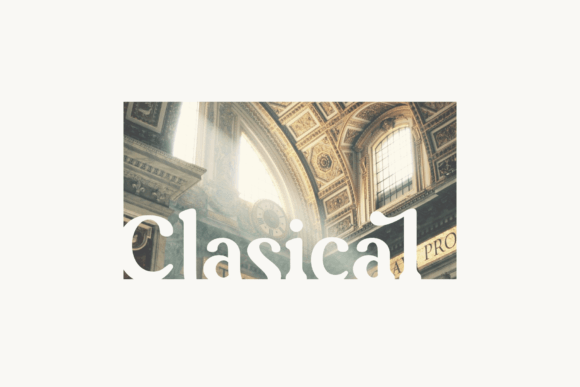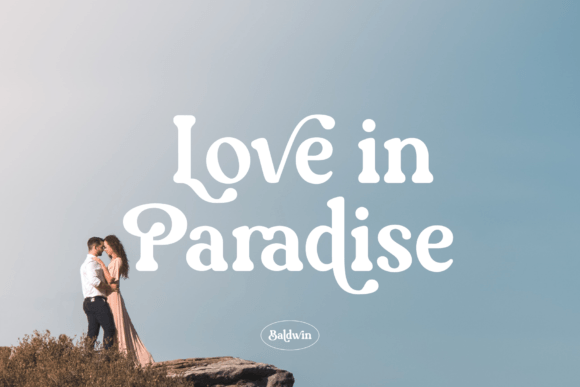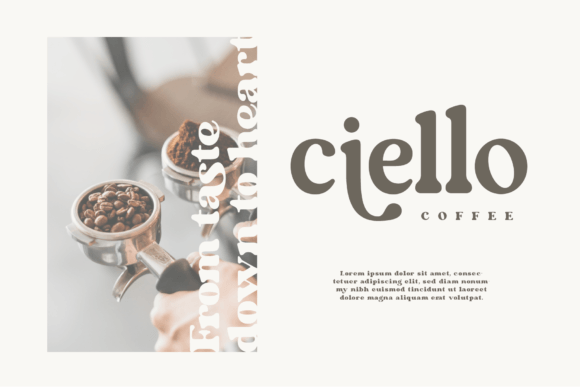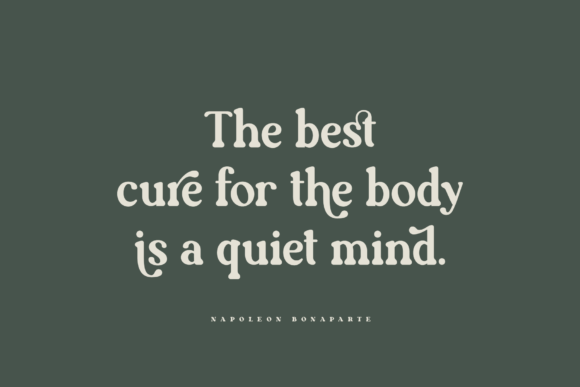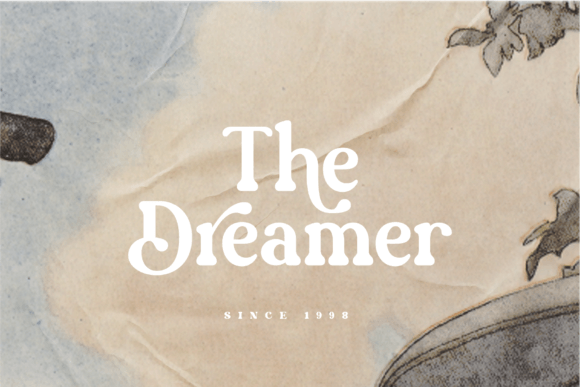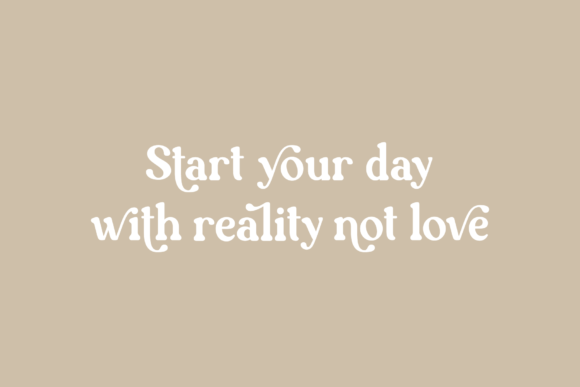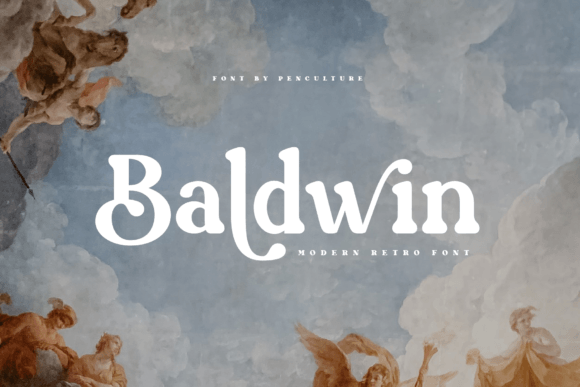
Introducing Baldwin Font: A Modern Retro Serif Font for Timeless Designs
In the world of typography, fonts play a crucial role in conveying the tone and personality of a design. For designers and crafters looking for a font that combines modernity with a touch of vintage charm, Baldwin Font is an excellent choice. This modern retro serif font seamlessly blends contemporary design with classic elegance, making it perfect for a wide range of design projects.
What is Baldwin Font?
Baldwin Font is a carefully crafted serif font that draws inspiration from traditional typography while incorporating modern design elements. Its clean lines, classic letterforms, and balanced proportions make it a versatile font suitable for various design applications. Whether you’re working on branding materials, editorial layouts, or web designs, Baldwin Font is designed to add a touch of sophistication to your work.
Key Features of Baldwin Font
- Modern Retro Aesthetic: Baldwin Font boasts a unique blend of modern and vintage design elements, making it stand out from more traditional serif fonts.
- Clean Lines and Classic Letterforms: The font features clean, elegant lines and classic letterforms that evoke a sense of timelessness and sophistication.
- Versatility: Baldwin Font is highly versatile and can be used for a wide range of design projects, from branding and editorial design to web design and more.
- Elegant and Sophisticated: The font’s design is characterized by its elegance and sophistication, making it perfect for designs that require a touch of refinement.
Use Cases for Baldwin Font
Baldwin Font’s versatility makes it suitable for various design projects. Here are some use cases where this font truly shines:
- Branding Materials: Use Baldwin Font to create elegant and sophisticated branding materials, such as logos, business cards, and letterheads.
- Editorial Layouts: The font’s classic design makes it perfect for editorial layouts, including magazines, newspapers, and books.
- Web Designs: Baldwin Font can be used to create visually appealing and user-friendly web designs, including website headers, menus, and content.
- Packaging Design: The font’s modern retro aesthetic makes it suitable for packaging design, adding a touch of elegance to product packaging.
Why Choose Baldwin Font?
With so many fonts available, why choose Baldwin Font? Here are a few reasons why designers and crafters love this font:
- Unique Aesthetic: Baldwin Font offers a unique blend of modern and vintage design elements, making it a standout choice for designers looking for something distinctive.
- High Legibility: The font’s clean lines and classic letterforms ensure high legibility, making it suitable for body text and headlines.
- Easy to Pair: Baldwin Font can be easily paired with other fonts to create visually appealing typography combinations.
Tips for Using Baldwin Font
To get the most out of Baldwin Font, here are some tips for using it effectively in your designs:
- Use it as a Headline Font: Baldwin Font’s elegant design makes it perfect for headlines and titles.
- Pair it with Sans-Serif Fonts: Pair Baldwin Font with sans-serif fonts to create visually appealing typography combinations.
- Experiment with Font Sizes: Experiment with different font sizes to create visual hierarchy and emphasize important design elements.
In conclusion, Baldwin Font is a versatile and elegant modern retro serif font that is perfect for designers and crafters looking to add a touch of sophistication to their designs. Its unique blend of modern and vintage design elements, high legibility, and ease of use make it a valuable addition to any design project. Whether you’re working on branding materials, editorial layouts, or web designs, Baldwin Font is sure to impress.